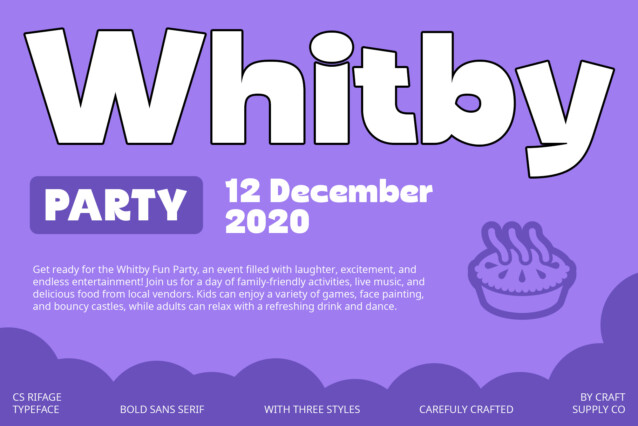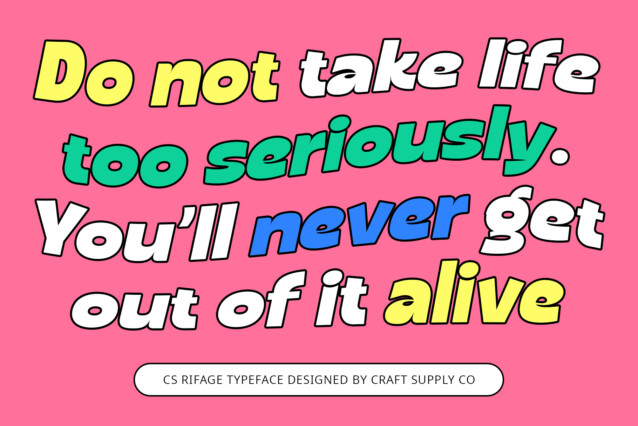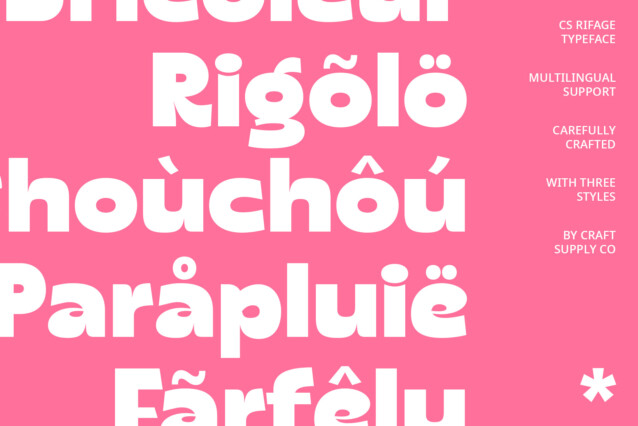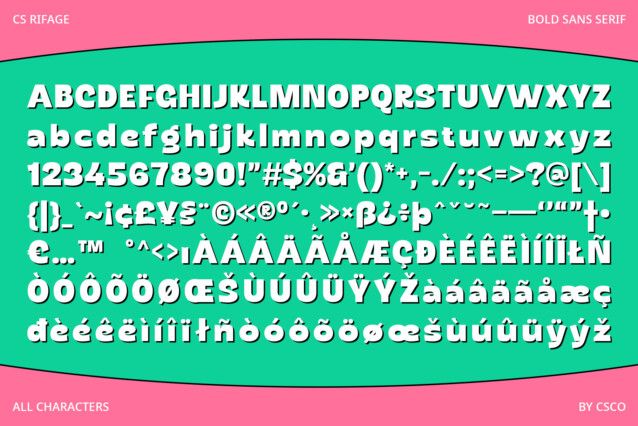
CS Rifage Font
CS Rifage Font is a bold sans-serif font that commands attention with its striking thick lines and unique, funky vibe. Designed to create an attractive and dynamic appearance, this font is perfect for projects such as poster designs, album covers, and branding materials that demand bold and creative typography.
Bold and Striking Design
The bold shape of CS Rifage ensures high visibility and impact, making it ideal for capturing audience attention in various design applications. Each letter is crafted to emphasize boldness while maintaining readability, ensuring your typographic compositions stand out with a powerful and vibrant presence.